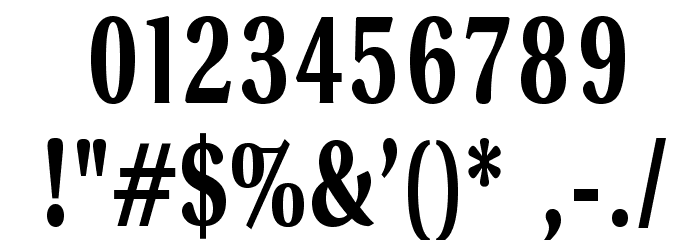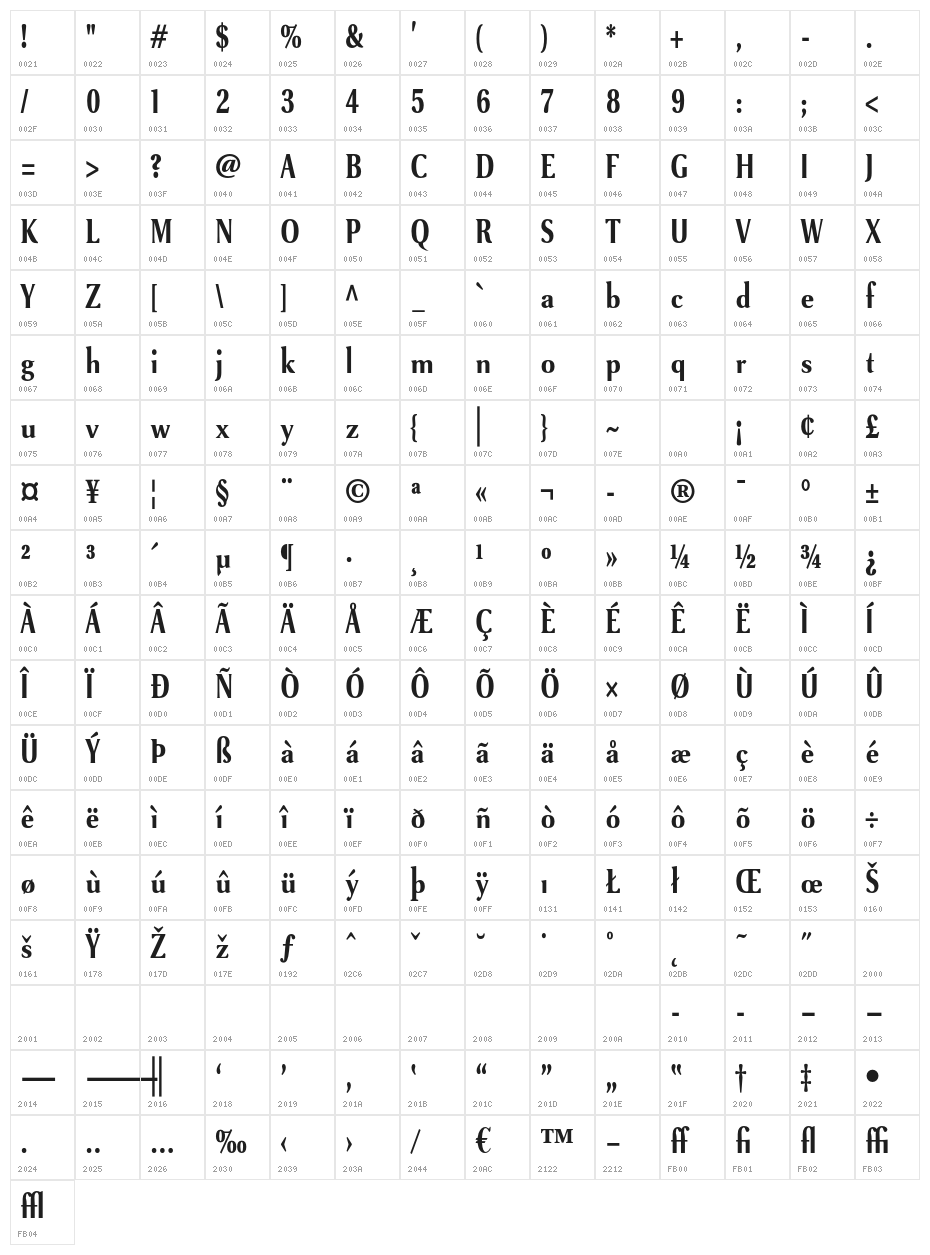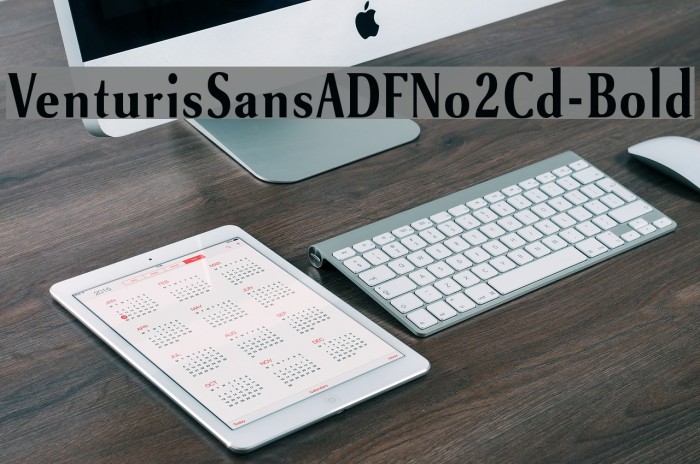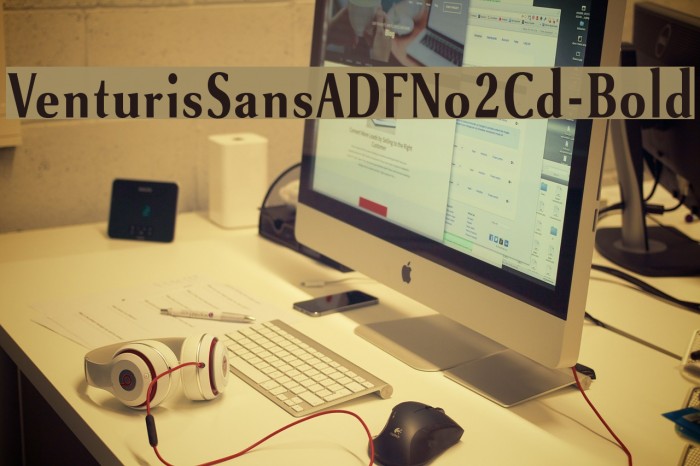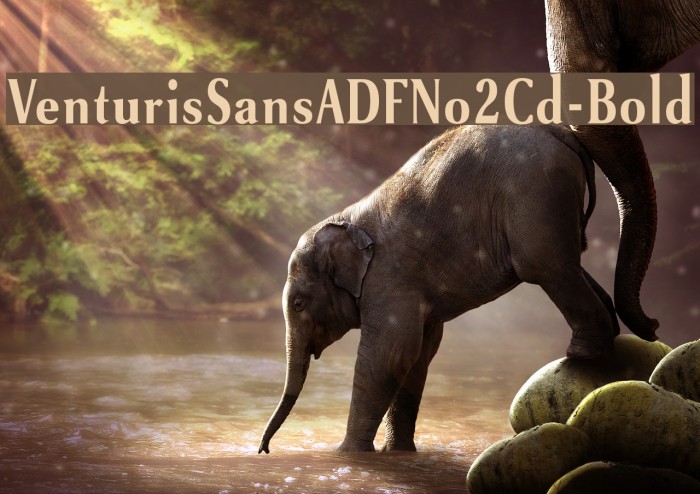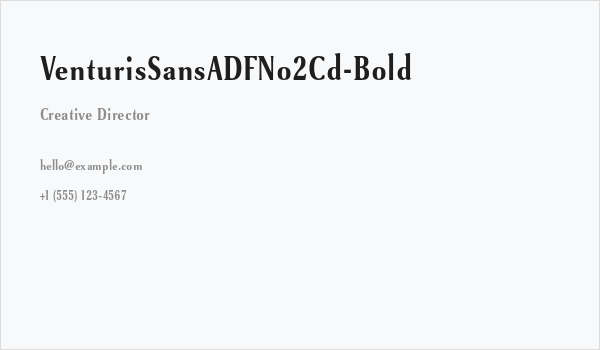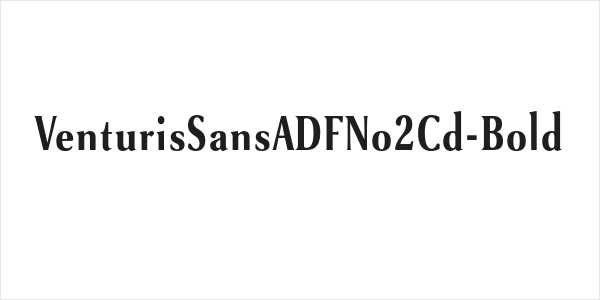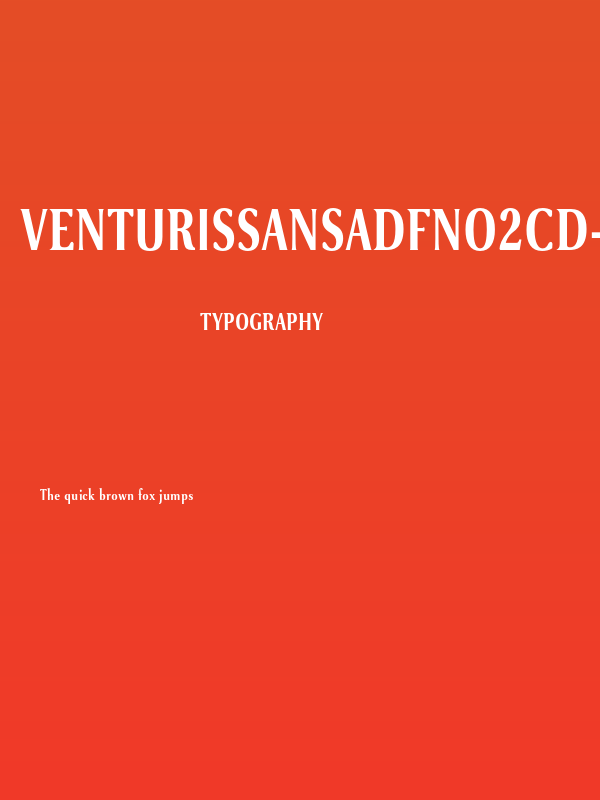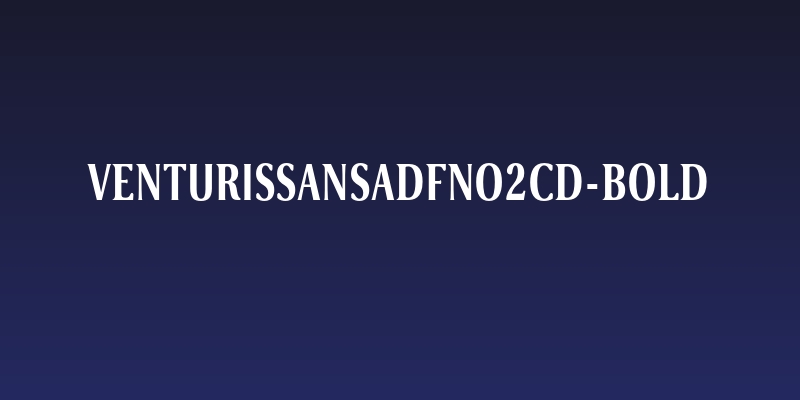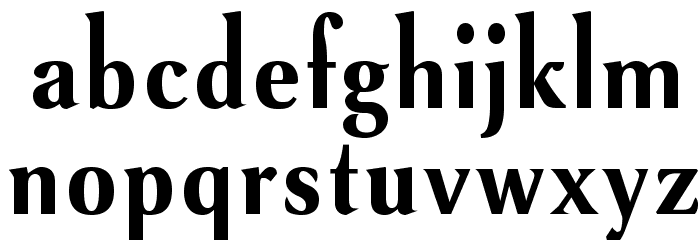
VenturisSansADFNo2Cd-Bold Font
VenturisSansADFNo2Cd-Bold Description
This font exhibits a bold and commanding presence with its strong, thick strokes and slightly condensed letterforms. The uppercase letters are particularly striking, with a robust and authoritative appearance. The lowercase letters maintain a consistent weight, providing a harmonious balance across the typeface. The numerals are clear and legible, making them suitable for a variety of applications. Special characters are well-defined, adding versatility to the font's usage. Overall, the font combines traditional serif elements with a modern twist, making it suitable for both classic and contemporary designs.
| Use Case | Headlines, Logos, Editorial design |
| Proposed Projects | Ideal for headlines, branding, editorial design, and signage where a strong, authoritative presence is desired. |